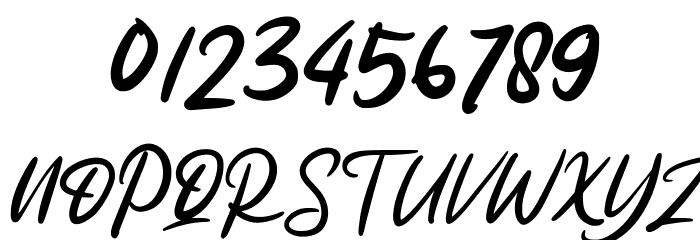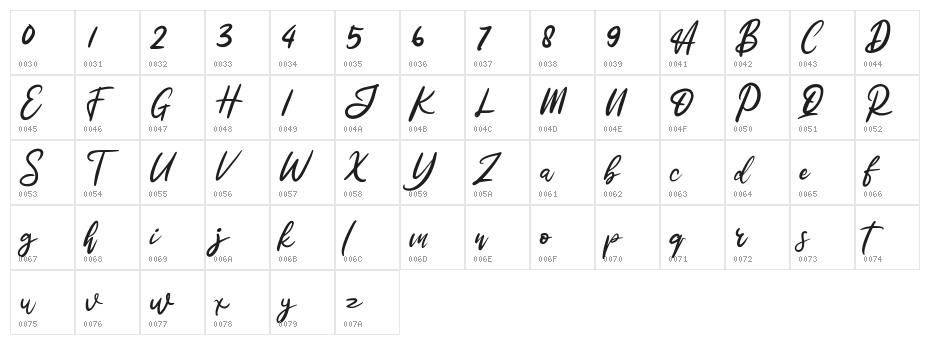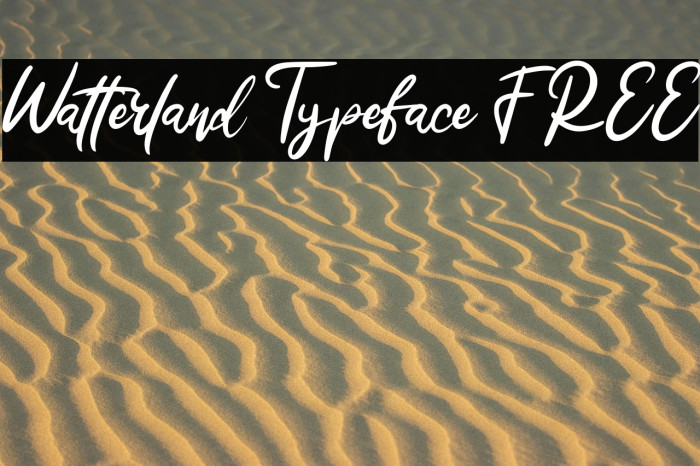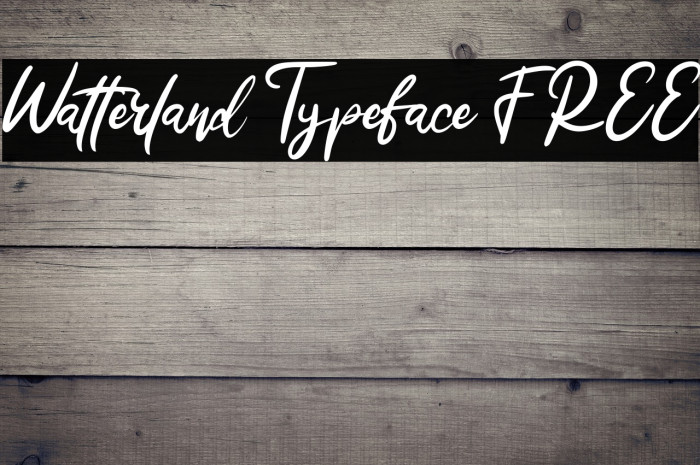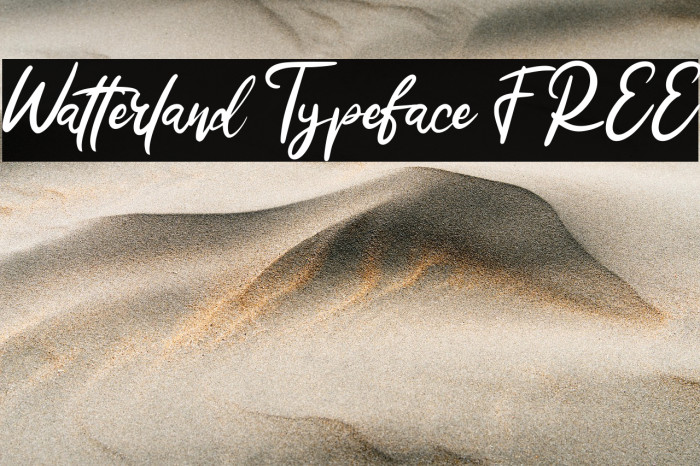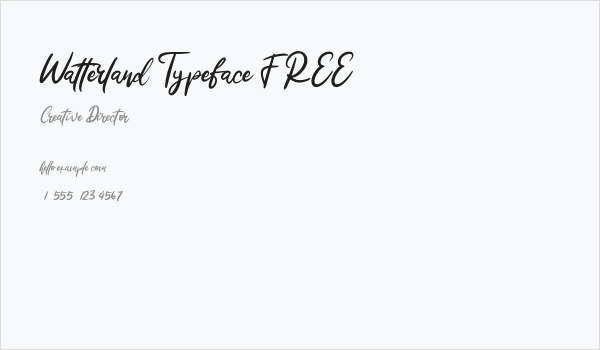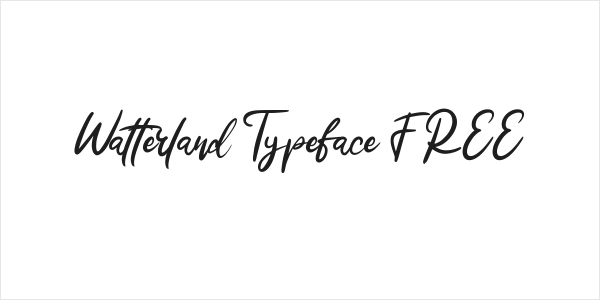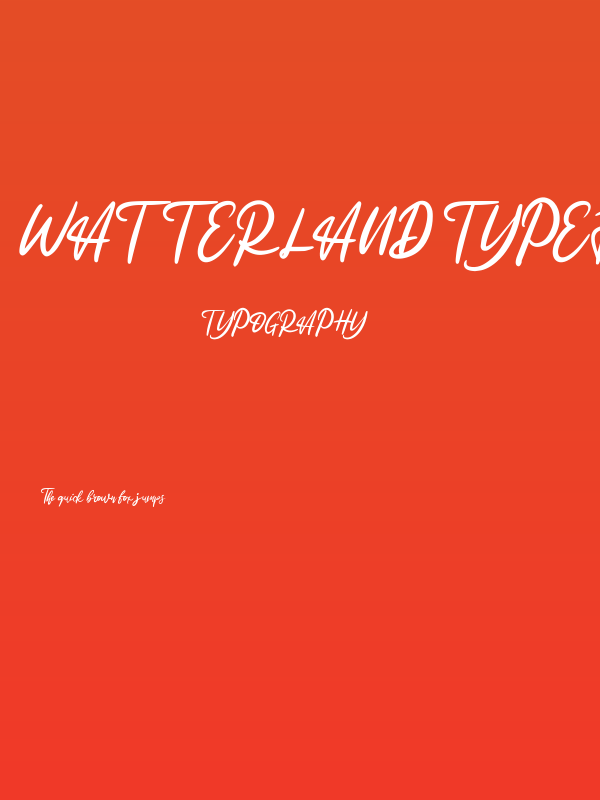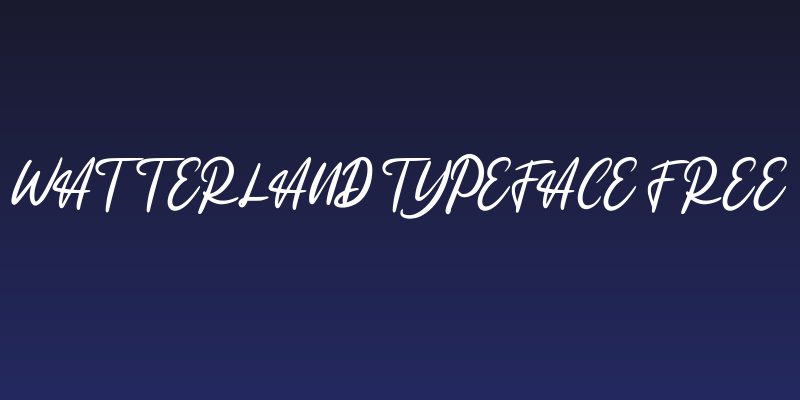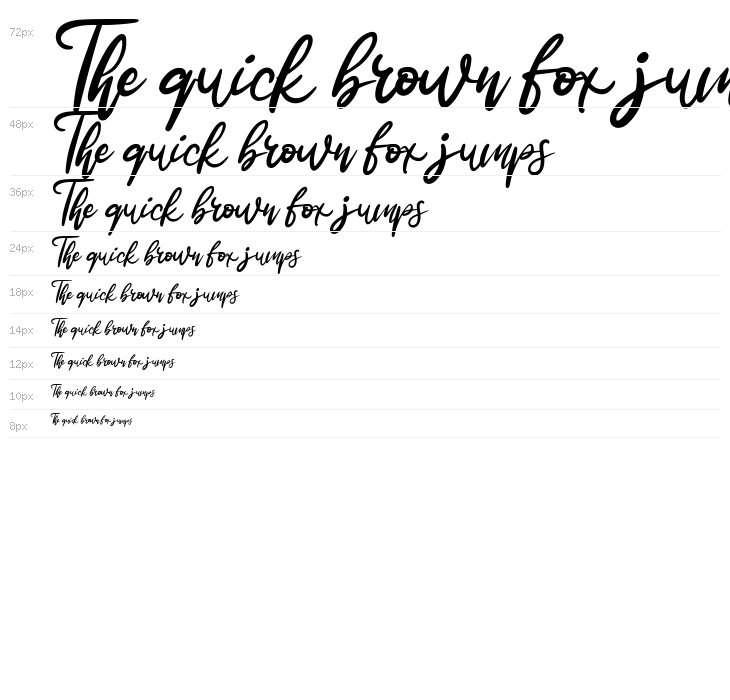
Watterland Typeface FREE Font
Watterland Typeface FREE Description
This font features a dynamic and fluid script style, characterized by its elegant, flowing curves and a handwritten appearance. The letters are connected, creating a seamless and continuous look that mimics natural handwriting. The strokes are bold and expressive, with a slight slant that adds to its casual yet sophisticated charm. This typeface is versatile, suitable for a variety of design projects where a personal touch is desired. The numbers and special characters maintain the same fluidity, ensuring consistency across all text elements.
| Proposed Projects | Ideal for wedding invitations, greeting cards, branding projects, and social media graphics. |